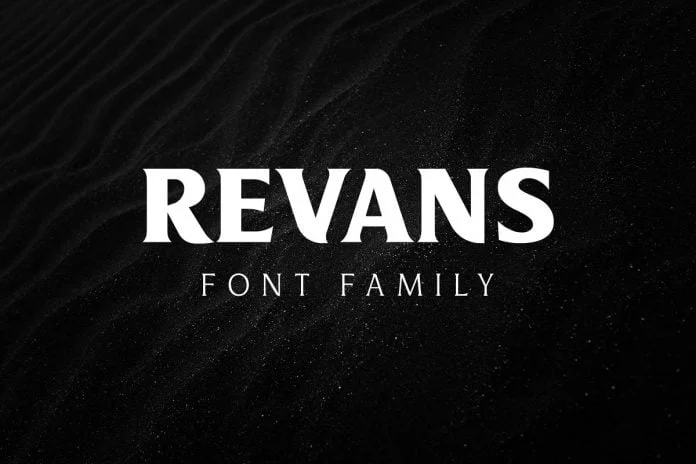
Revans Font
Revans Font is perfect for luxury brand logos, high-end packaging design, premium product labels, sophisticated magazine layouts, elegant business cards, upscale restaurant menus, fashion brand identity, jewelry advertising, wine bottle labels, and exclusive event invitations.
Revans Font is exciting because it embodies timeless sophistication with contemporary refinement, creating a typeface that exudes luxury and exclusivity while maintaining exceptional readability. This meticulously crafted font combines classical typography principles with modern design sensibilities, making it perfect for brands that demand distinction and premium positioning in competitive markets.
The Revans Font family includes multiple weights from Light to Bold, along with corresponding italic versions and extended character variations. The family features elegant ligatures, stylistic alternates, and refined numerals that enhance the font's sophisticated appearance and provide designers with comprehensive typographic options.
The distinguished character of Revans Font makes it an exceptional choice for luxury goods, premium services, and exclusive brands that need to communicate quality and refinement through typography. Each letterform demonstrates meticulous attention to detail, with subtle curves and precise spacing that create harmonious text composition while maintaining strong visual presence and brand recognition.
Luxury brand managers, high-end design agencies, and premium product manufacturers consistently choose Revans Font for its ability to convey exclusivity and sophistication without appearing ostentatious or overly decorative. The font strikes the perfect balance between elegance and functionality, making it ideal for applications ranging from intimate business correspondence to large-scale luxury advertising campaigns.
This font's extensive character set includes international language support, currency symbols, mathematical operators, and specialized punctuation marks required for global luxury markets. The consistent styling across all characters ensures cohesive brand execution while maintaining the refined aesthetic that distinguishes premium brands from mass market alternatives.